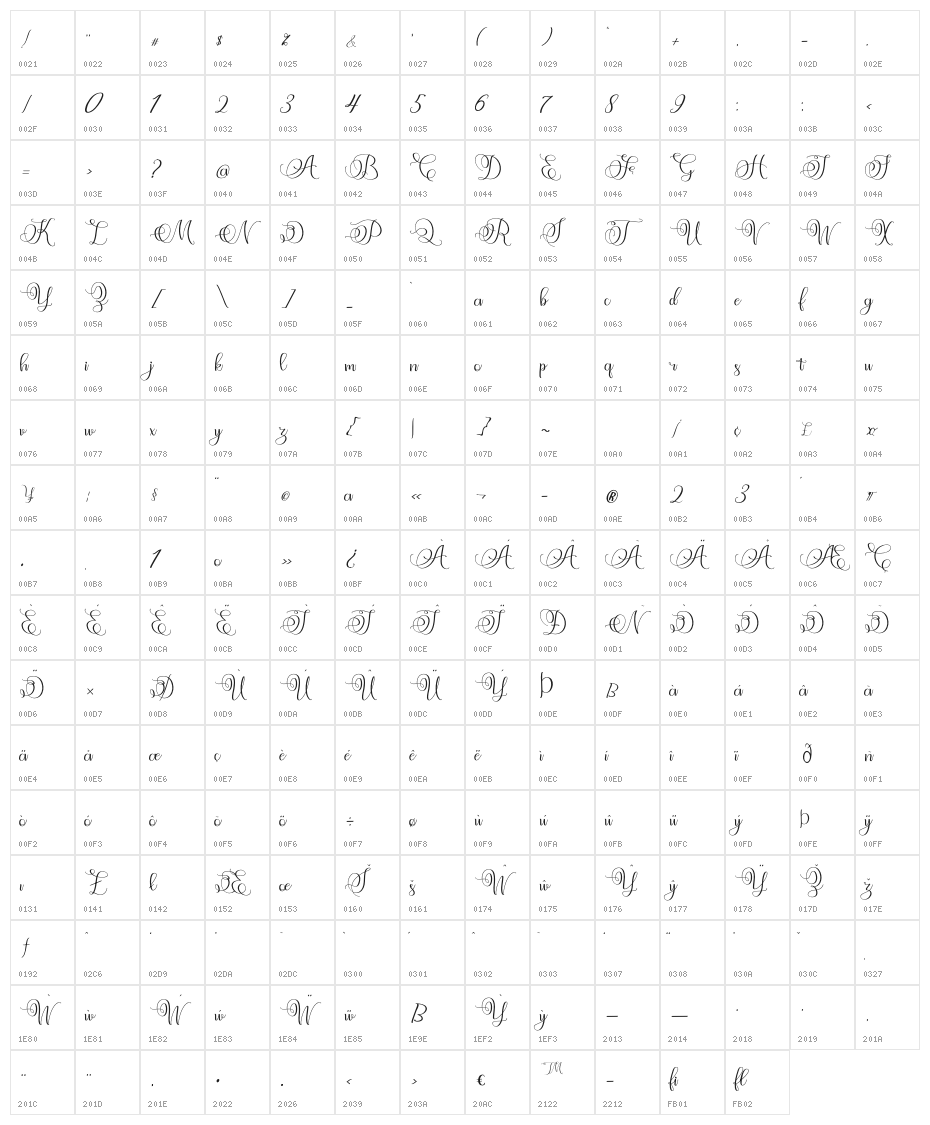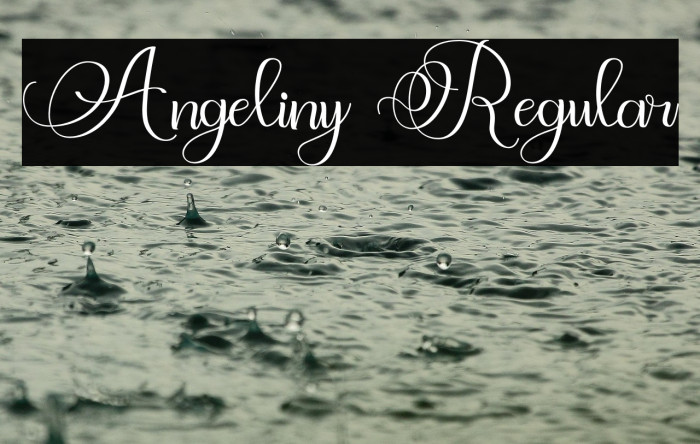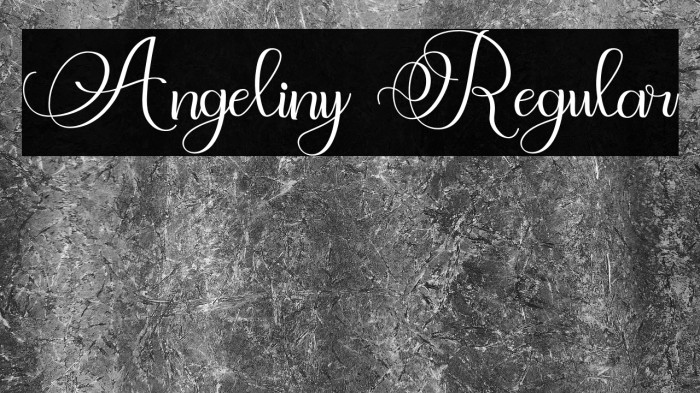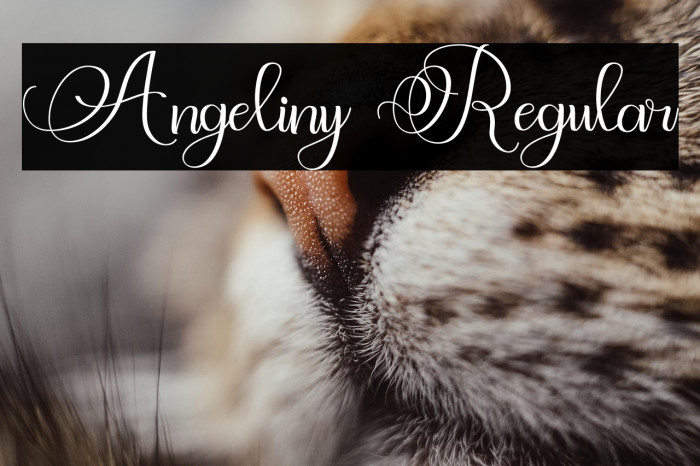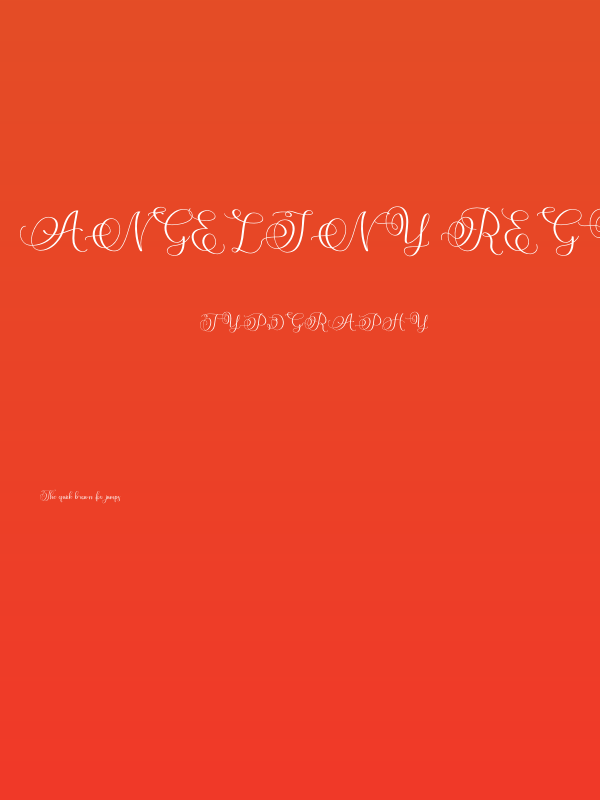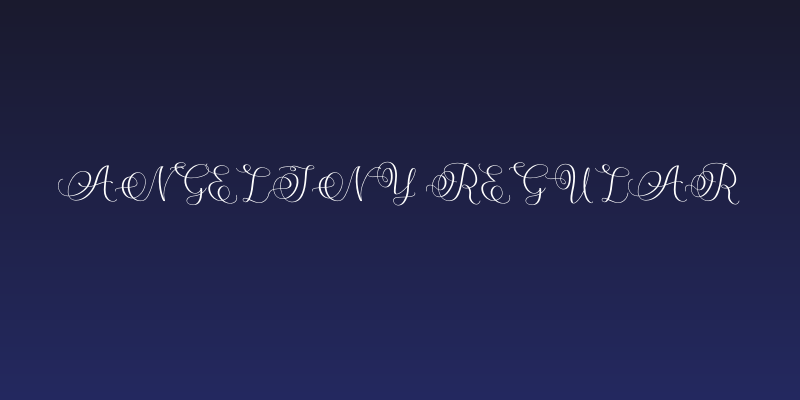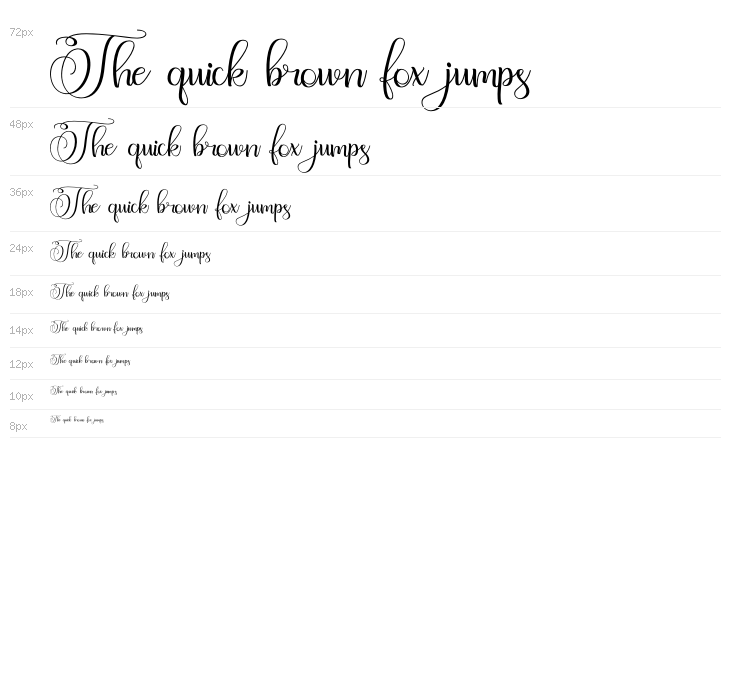
Angeliny Regular Font
Angeliny Regular Description
This elegant script font features intricate swirls and flourishes, giving it a sophisticated and decorative appearance. The uppercase letters are highly stylized with elaborate loops, while the lowercase letters maintain a more fluid and connected script style. The numbers and special characters are designed with a similar flair, ensuring a cohesive look throughout. This font exudes a sense of elegance and charm, making it ideal for formal invitations, branding, and decorative purposes. Its artistic nature makes it stand out, capturing attention with its graceful curves and detailed design.
| Proposed Projects | Ideal for wedding invitations, luxury branding, greeting cards, and decorative signage. |
Angeliny Regular